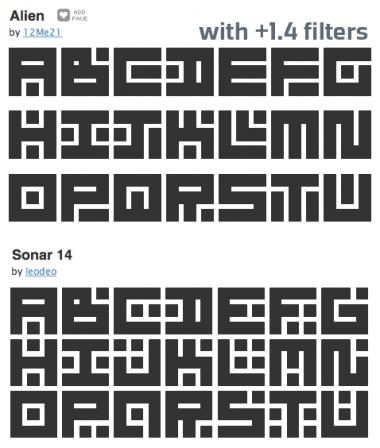
I'm not saying that you copied me, but this font seems similar to my font: http://fontstruct.com/fontstructions/show/991606
I'll say it then - it's totally copied.
This is basically a bolder version of yours by going to Menu > View > Filters and set it to 1.5 in Horizontal and vertical brick size.
So it doesn't appear as a clone, they've cloned yours, then copied and pasted over the letters into a new file.
Unfortunately as nice as it is to learn techniques from cloning, there is always someone who abuses the system and doesn't give any credit to the original designer. We all learn from copying, but please always try to give credit to your influences.
Nice work! This is similar but, in detail, quite different to the referenced FontStruction. It's also a different grid size and does not use filters. No copy and paste here. I'm sure there will be many more similar but different FontStructions of this sub-genre in the Gallery somewhere, now and in the future. Fave!
Do you think they could have been influenced by the other font, or is this style pretty common?
Wow. That is similar. Dont know if you will believe me, but I had not seen your font prior to making this.
I guess it is bound to happen from time to time when we explore pixel typefaces with similar "set rules"
Sonar 14by leodeo